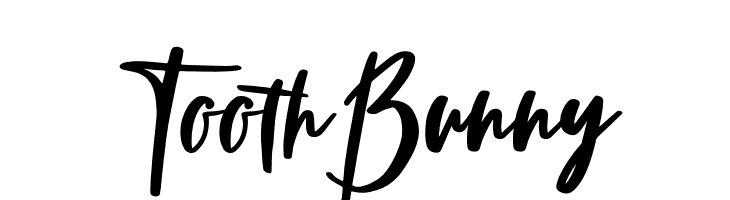
( Fonts by RaisProject )
Expressive handwritten script with tall, narrow forms and variable stroke thickness.
( Fonts by Mariyana )
Expressive handwritten script with fluid, connected strokes.
( Fonts by Darman Kadir )
Elegant, monoline script with natural handwritten style.
( Fonts by Scratchones )
A hand-drawn, playful sans-serif font with rounded, consistent strokes.
( Fonts by Maulana Creative )
Bold, brush-style script with a modern, handwritten look.
( Fonts by Graphix Line Studio )
Casual handwritten script with rounded, connected strokes.
Heavy, geometric sans-serif with bold, playful shapes.
( Fonts by Calligraphy Fonts )
A delicate, handwritten script with tall, sweeping forms.
( Fonts by Calligraphy Fonts )
Expressive, handwritten cursive script with fluid, connected strokes.
( Fonts by Vztype Studio )
A stylish, handwritten script font with expressive, flowing strokes.
( Fonts by Vztype Studio )
A stylish, cursive script with expressive, fluid letterforms.
( Fonts by Dikas Studio )
Bold, playful handwritten font with brush-like strokes.
( Fonts by Vunira Design )
Thin, flowing handwritten script with connected letters.
( Fonts by Vunira Design )
Thin, cursive script with a handwritten, elegant style.
( Fonts by Letterena Studios )
Casual handwritten font with playful, uneven strokes.
Geometric serif font with sharp, modern serifs and strong legibility.
( Fonts by Jadatype )
Loose, airy handwritten script with tall, thin characters.